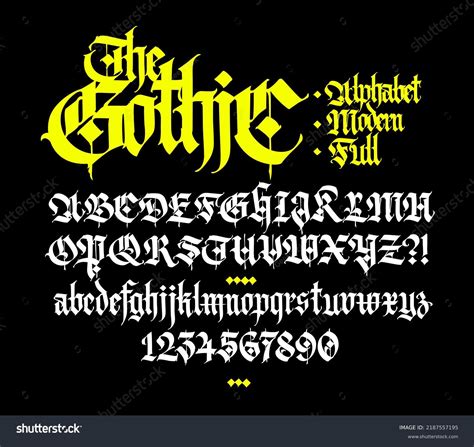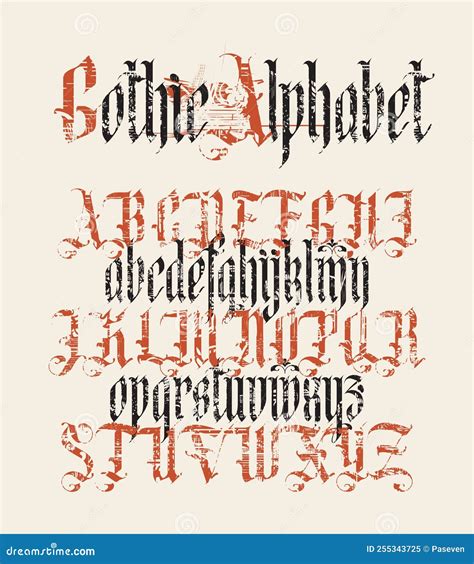
In the realm of typography, few styles evoke as much intrigue and mystery as the Gothic handwriting font. This elegant and ornate script has a rich history that dates back to the medieval period, and it continues to captivate designers and enthusiasts alike with its distinctive features and timeless appeal. Whether you're a graphic designer looking to add a touch of elegance to your projects or a calligraphy enthusiast seeking to master a new style, understanding the nuances of Gothic handwriting fonts can be both rewarding and inspiring.
Understanding Gothic Handwriting Fonts
The term "Gothic" in typography refers to a style of writing that emerged in Europe during the late Middle Ages. This style is characterized by its vertical strokes, intricate details, and a sense of formality that sets it apart from other scripts. Gothic handwriting fonts are often associated with medieval manuscripts, religious texts, and historical documents, lending them an air of antiquity and sophistication.
There are several subtypes of Gothic handwriting fonts, each with its unique characteristics:
- Textura: Known for its dense, blackletter style, Textura is one of the most recognizable Gothic scripts. It features tightly packed letters with intricate details and is often used in formal documents and certificates.
- Rotunda: This style is more rounded and open compared to Textura. Rotunda is often used in manuscripts and is known for its legibility and elegance.
- Bastarda: A hybrid style that combines elements of Textura and Rotunda, Bastarda is known for its versatility and is often used in both formal and informal contexts.
The Evolution of Gothic Handwriting Fonts
The evolution of Gothic handwriting fonts can be traced back to the Carolingian minuscule, a script developed during the reign of Charlemagne. This script was designed to be legible and uniform, making it easier for scribes to copy texts accurately. Over time, the Carolingian minuscule evolved into various Gothic styles, each with its unique characteristics and uses.
During the Renaissance, the popularity of Gothic handwriting fonts began to wane as humanist scripts gained prominence. However, Gothic fonts continued to be used in specific contexts, such as religious texts and legal documents, where their formal and authoritative appearance was valued.
In the modern era, Gothic handwriting fonts have experienced a resurgence in popularity, thanks in part to their use in graphic design, branding, and digital media. Designers appreciate the timeless appeal and versatility of Gothic fonts, which can add a touch of elegance and sophistication to a wide range of projects.
Using Gothic Handwriting Fonts in Design
Gothic handwriting fonts can be a powerful tool in the designer's toolkit, adding a sense of history and elegance to various projects. Here are some tips for effectively using Gothic fonts in your designs:
- Choose the Right Font: Select a Gothic font that complements the overall aesthetic of your project. Consider the context and the message you want to convey. For example, Textura might be more suitable for formal documents, while Rotunda could work well for more casual designs.
- Pair with Complementary Fonts: Gothic fonts can be paired with other fonts to create a balanced and harmonious design. Consider using a sans-serif font for body text to contrast with the ornate Gothic script.
- Use Sparingly: Gothic fonts are best used sparingly to avoid overwhelming the design. Use them for headings, logos, or special text elements to create a focal point.
- Adjust Size and Spacing: Gothic fonts often have intricate details that can be lost at smaller sizes. Ensure that the font size is large enough to be legible and adjust the letter spacing (tracking) to improve readability.
Popular Gothic Handwriting Fonts
There are numerous Gothic handwriting fonts available, each with its unique characteristics and uses. Here are some popular options that you might consider:
| Font Name | Style | Use Cases |
|---|---|---|
| Old English Text MT | Textura | Certificates, invitations, logos |
| UnifrakturCook | Fraktur | Headings, posters, branding |
| Goudy Text | Rotunda | Books, magazines, formal documents |
| Cloister Black | Textura | Headings, certificates, logos |
| Diploma | Bastarda | Certificates, invitations, formal documents |
📝 Note: When choosing a Gothic handwriting font, consider the overall aesthetic and readability of your project. Some Gothic fonts may be more suitable for decorative purposes, while others are better for legibility.
Mastering Gothic Handwriting
If you're interested in mastering Gothic handwriting, there are several steps you can take to improve your skills:
- Study the Basics: Familiarize yourself with the basic strokes and letterforms of Gothic handwriting. Practice writing individual letters and words to build your muscle memory.
- Use Reference Materials: Utilize books, online tutorials, and practice sheets to guide your learning. There are many resources available that can help you understand the nuances of Gothic handwriting.